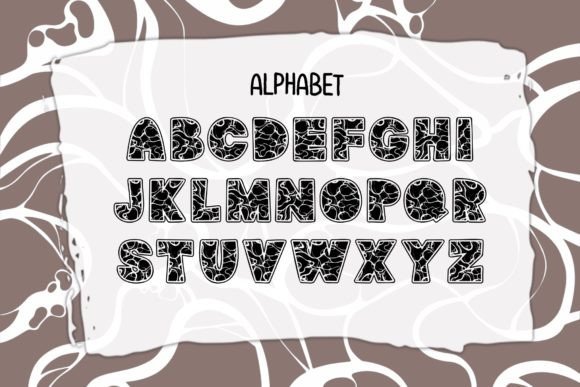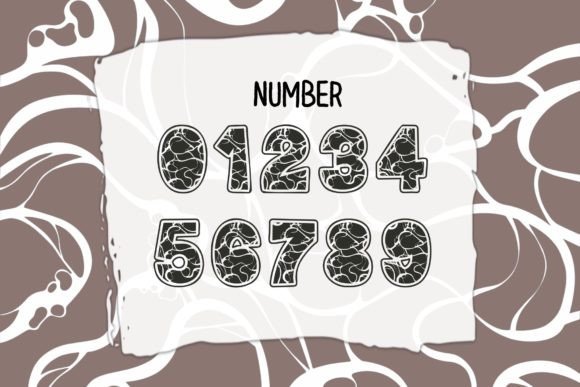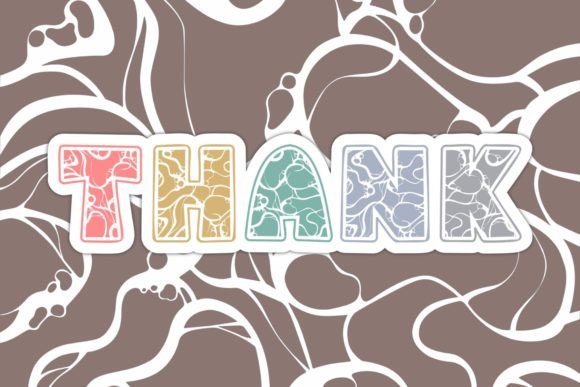
Introduction to Liquid Marble Font
Liquid Marble is a Decorative font.
This font is the perfect fit for all of your logos, branding, social media, crafty DIY projects, and much more .